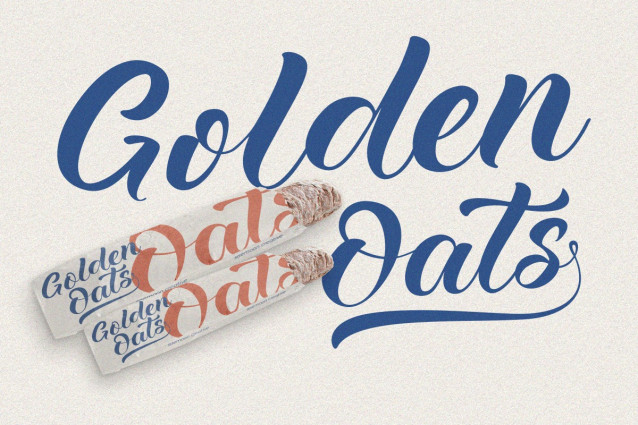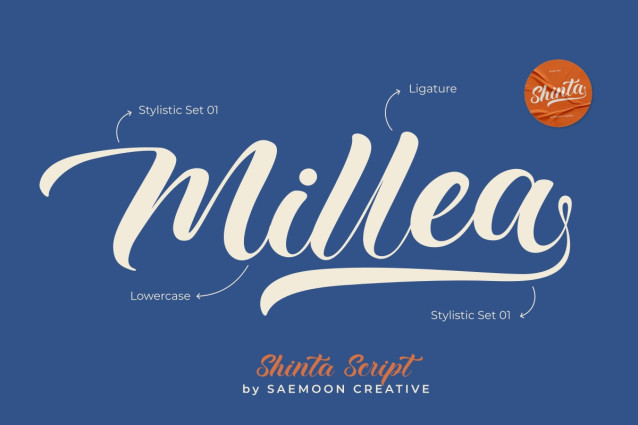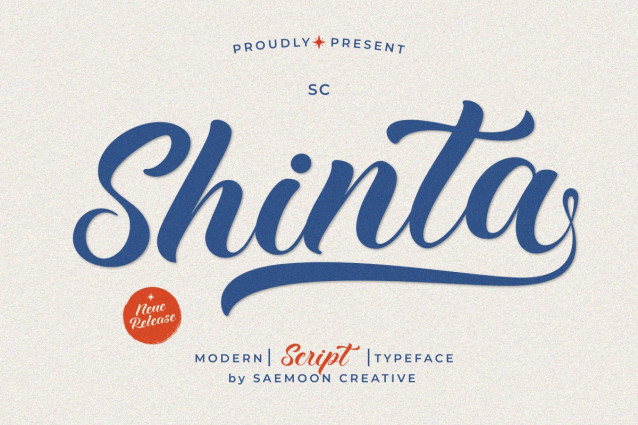
SC Shinta Font is a modern script typeface designed with smooth curves and elegant letter flow, bringing a luxurious and personal touch to your creative projects. Combining classic charm with contemporary sophistication, SC Shinta features carefully crafted letterforms, seamless connections, and stylish swashes. Perfect for logos, wedding invitations, packaging, posters, branding, and a wide range of design applications, it transforms your work with elegance and character.